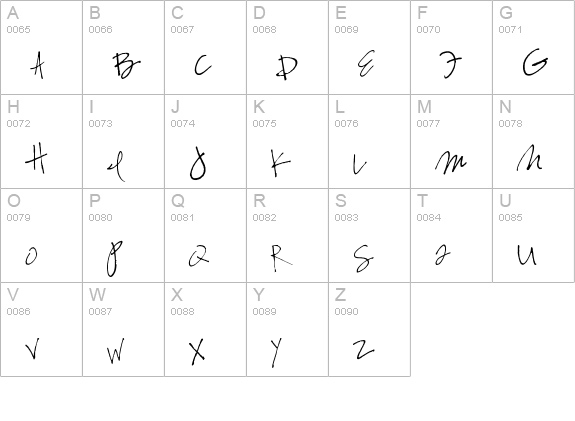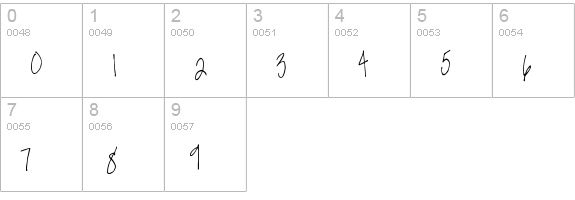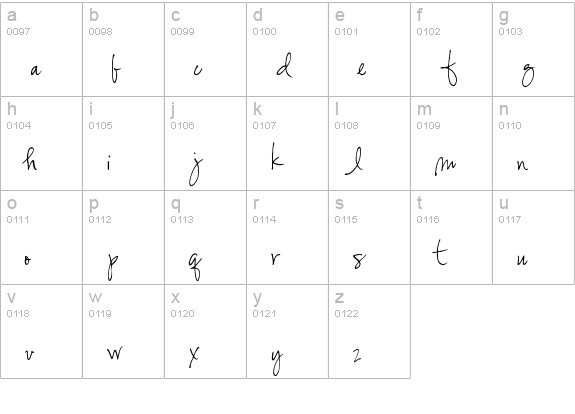
Susie's Hand Font Details
Introducing Susie's Hand font, a charming and playful typeface that exudes warmth and friendliness. With its handwritten style and delicate curves, Susie's Hand is perfect for adding a personal touch to your creative projects. Whether you are designing greeting cards, invitations, or social media graphics, this versatile font will bring a unique and whimsical flair to your designs. The best part? Susie's Hand font is available for free download at FontsMarket.com. Simply visit the website to access this lovely font and start incorporating its delightful characters into your work today. Embrace the beauty of handcrafted typography with Susie's Hand font and watch as your designs come to life with a touch of handmade charm.